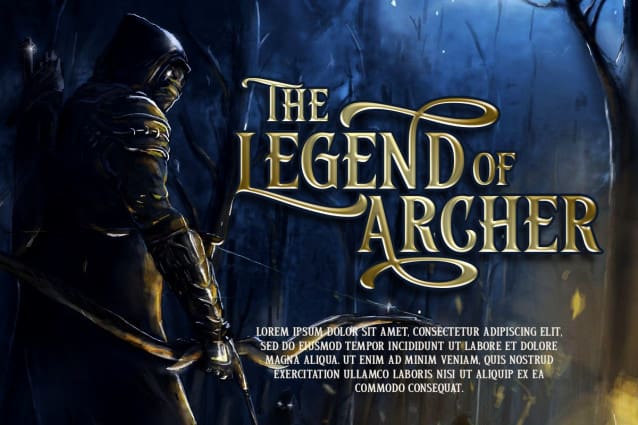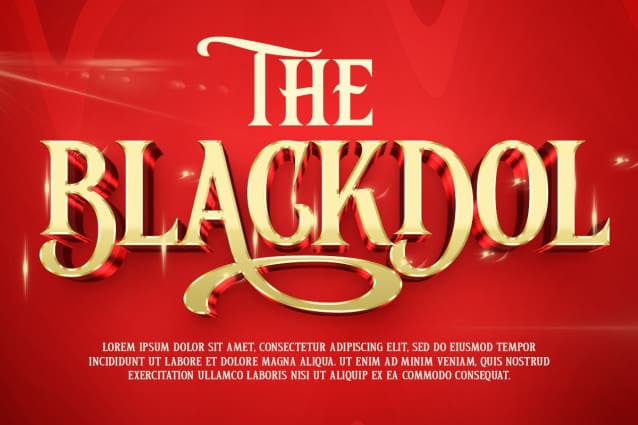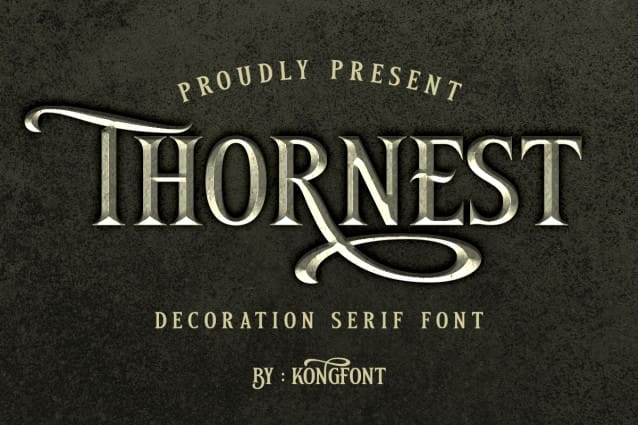
Thornest Font
Thornest Font – Classy Serif Font. There are many different types of serif fonts available as options for all of us. Thornest classy serif font is one of the fonts that come with a unique, modern, and classic impression. This impression makes this font different from other serif fonts. Thornest font) has an upright shape and curves in some of the letters. In addition, Thornest looks like embossed letters or resembles two dimensions.
The characters described above make Thornest one of the best fonts that have high compatibility when used as intros containing dark, ancient, and western film titles. Another use for this font is that can be used on the cover of a storybook or novel. This shows that Thornest Font  can be used as a digital font and printed concerning the appropriate font size. The reason is also supported by the font legibility.